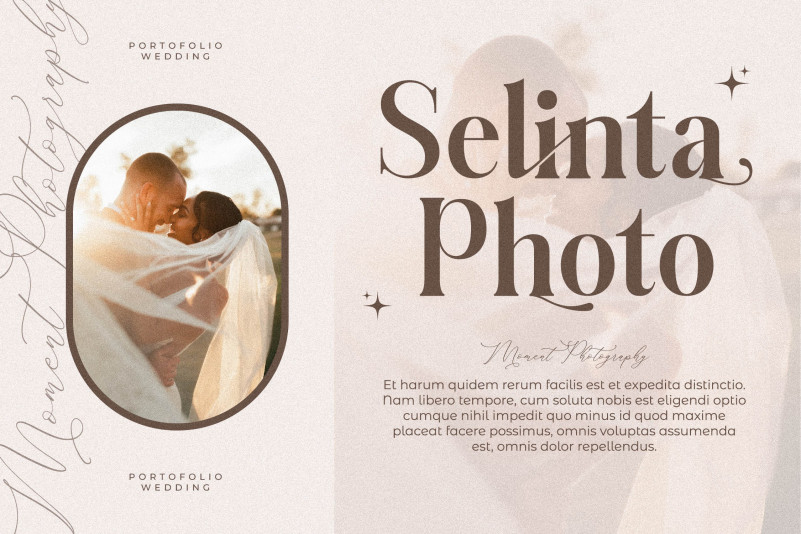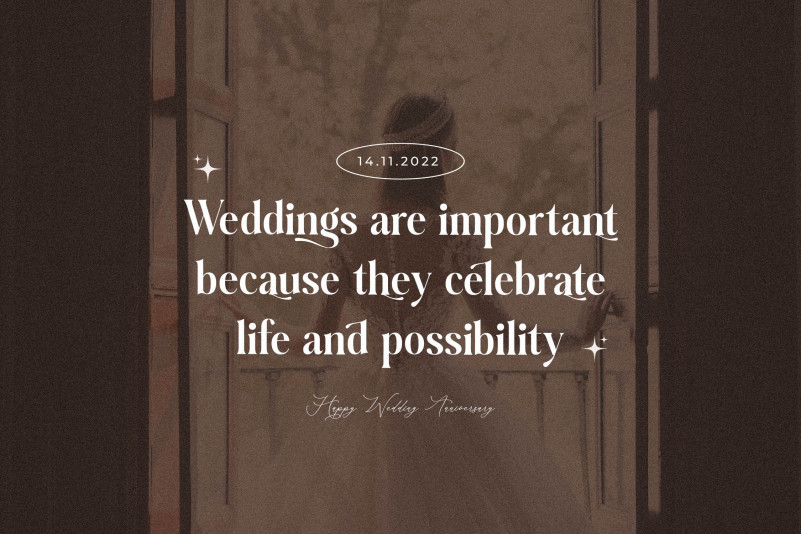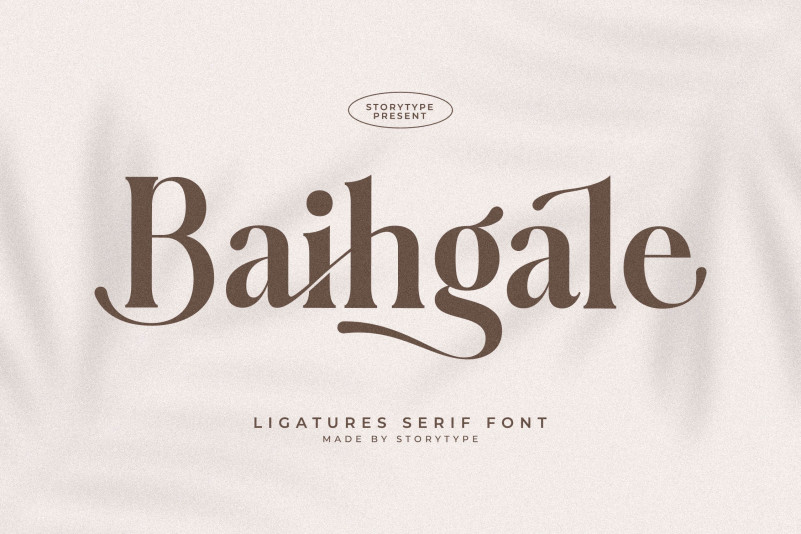
Baihgale Font
Baihgale Serif Font is perfect for an elegant & luxury logo, book or movie title design, fashion brand, magazine, clothes, lettering, quotes, and so much more. This font is PUA encoded, which means you can access all of the glyphs and swashes with ease!